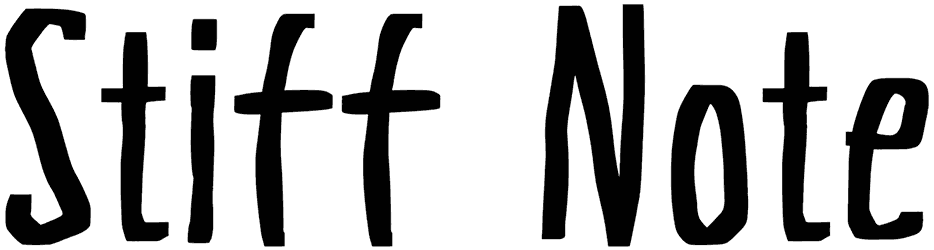
Antarig Blagu Font
Click on download because you’re not gonna find a greater handwritten font than Antarig Blagu. This font creates a unique vibe that brings the reader’s emotions closer to your content. It doesn’t matter if the content is a postcard or a billboard; this font would work perfectly.